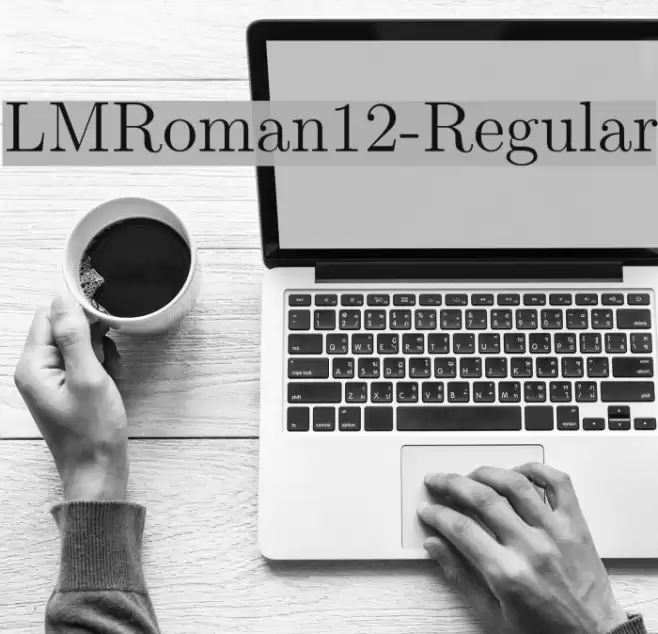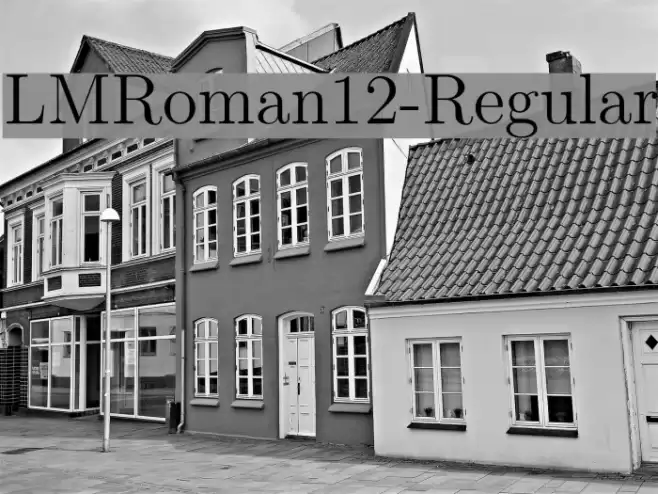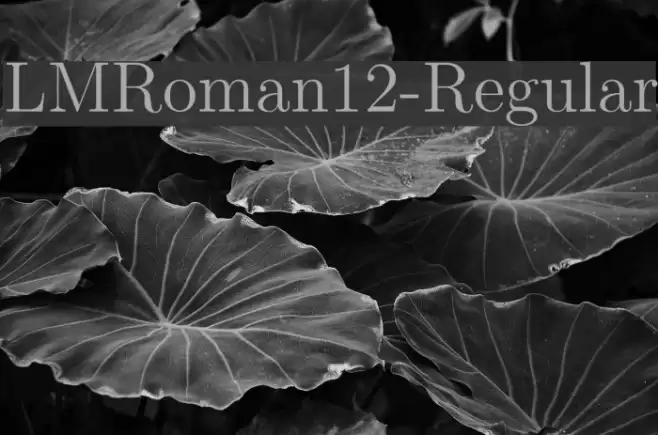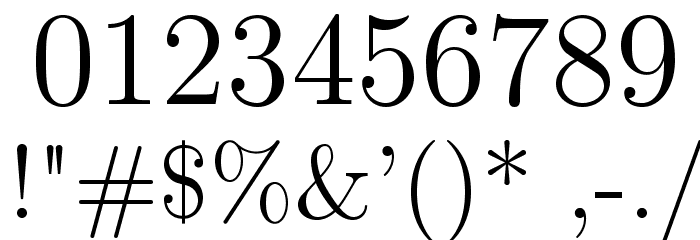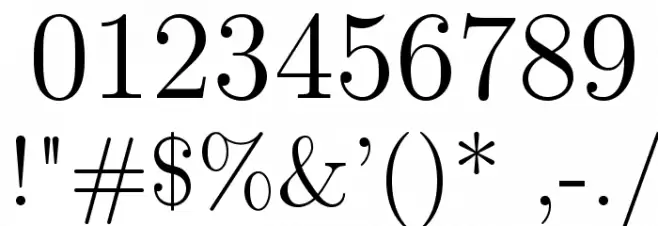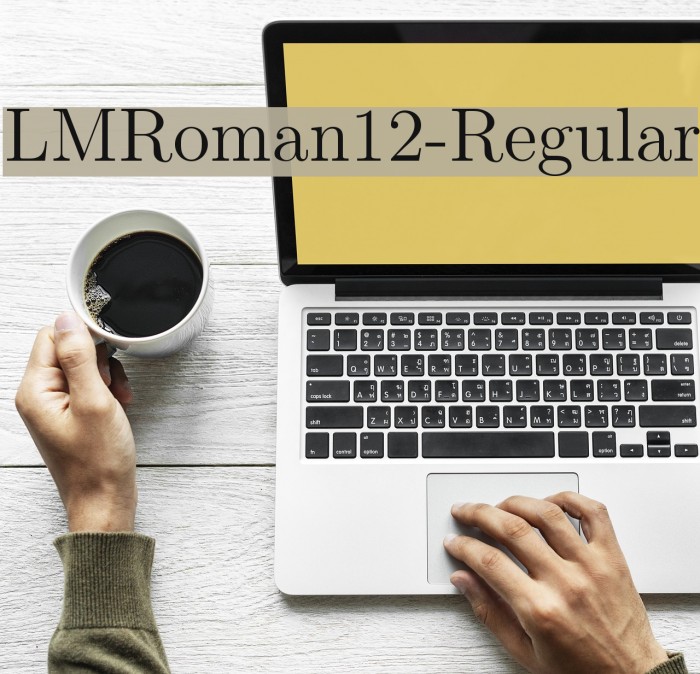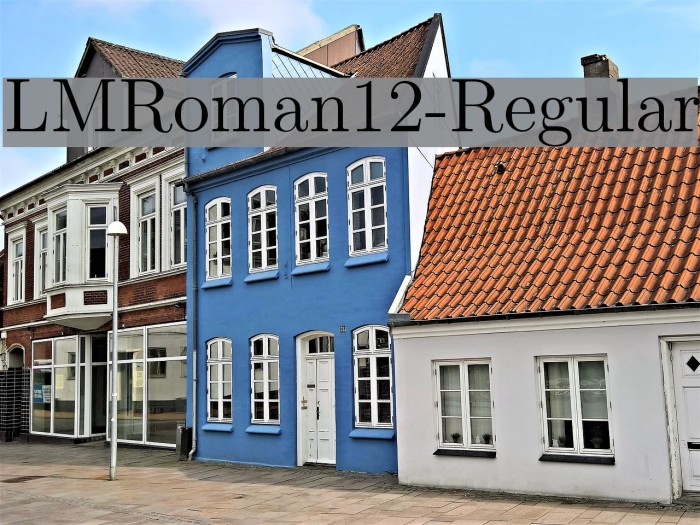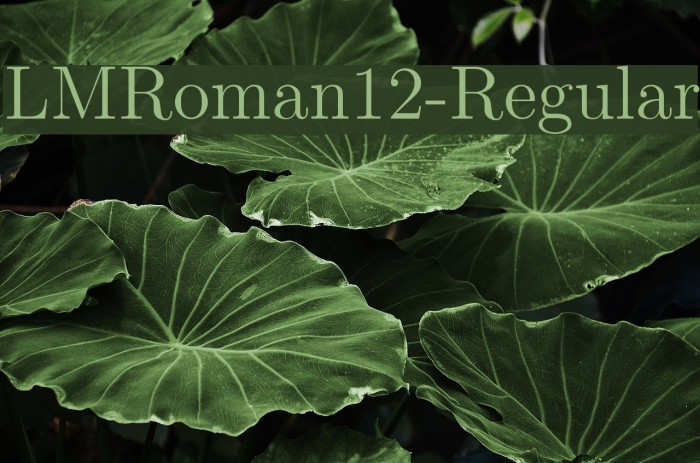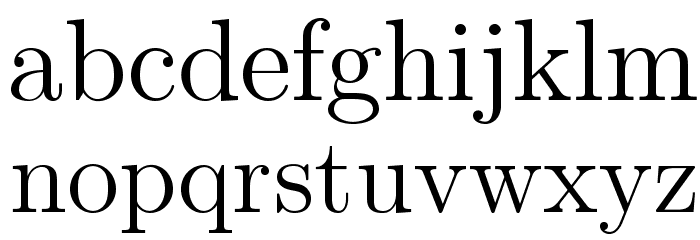
LMRoman12-Regular
This font exhibits a classic serif style with elegant and refined strokes. The characters have a traditional appearance, featuring distinct serifs that enhance readability and lend a sophisticated touch. The uppercase letters are well-proportioned, while the lowercase letters maintain a consistent x-height, contributing to a harmonious text flow. The numerals are clear and balanced, making them suitable for both text and numerical data. The special characters are designed with precision, ensuring they integrate seamlessly with the rest of the typeface.
A classic serif font with elegant strokes and refined serifs.
- Proposed Projects: Ideal for projects requiring a traditional and formal look, such as book typesetting, academic papers, and formal invitations.
- Category: Serif
- Overall Style: Classic
- Use Case: Body text, Headlines, Formal documents